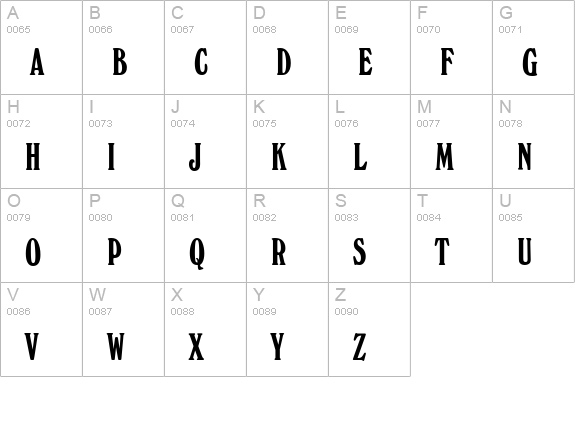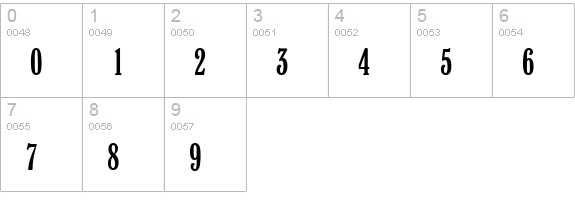
Whitehall-Elongated-Regular Font Details
Whitehall-Elongated-Regular is the standard, neutral variant in the Whitehall typeface family \xE2\x80\x94 well suited to general body text, paragraphs, and standard typographic work.
Whitehall-Elongated-Regular is a modern and elegant font that exudes sophistication and style. With its elongated letterforms and clean lines, this font is perfect for adding a touch of class to your designs. Whether you're working on a logo, branding materials, or a project that requires a refined aesthetic, Whitehall-Elongated-Regular is sure to impress. The best part? Whitehall-Elongated-Regular is available for free download at FontsMarket.com. This means you can easily access this beautiful font and use it in your projects without any cost. Don't miss out on the opportunity to elevate your designs with this stunning typeface. Download Whitehall-Elongated-Regular today and take your work to the next level!